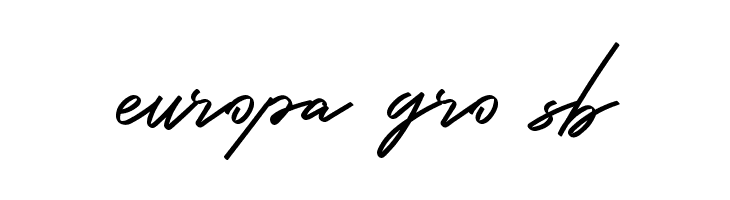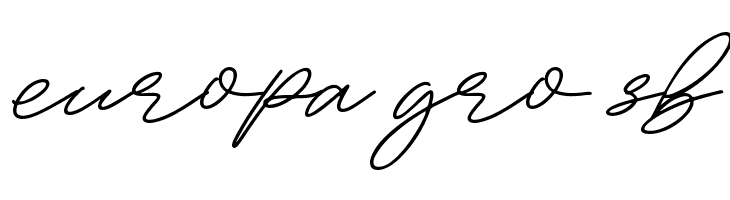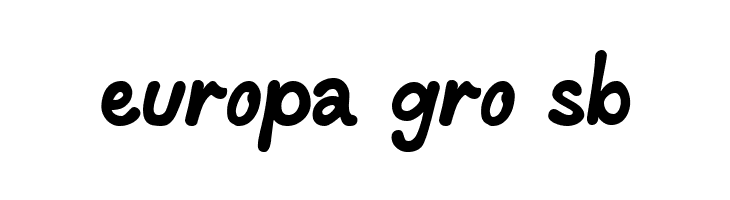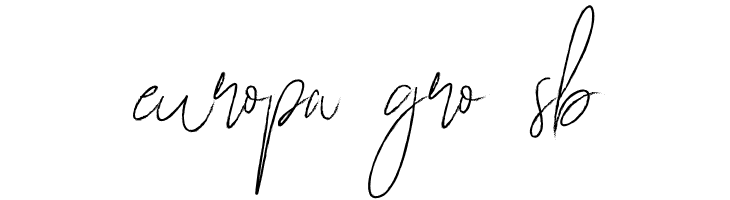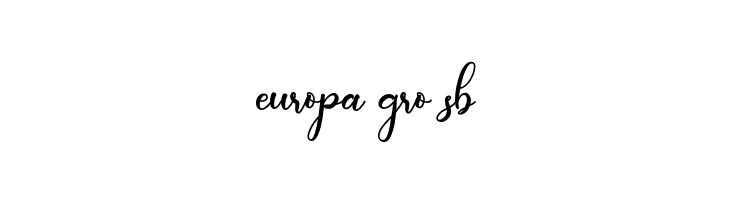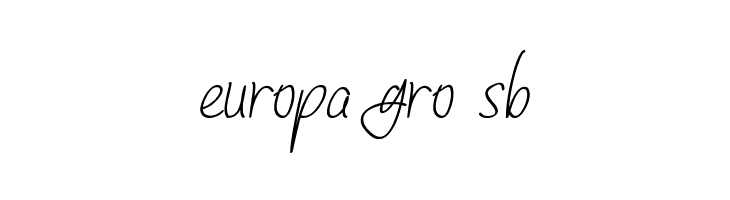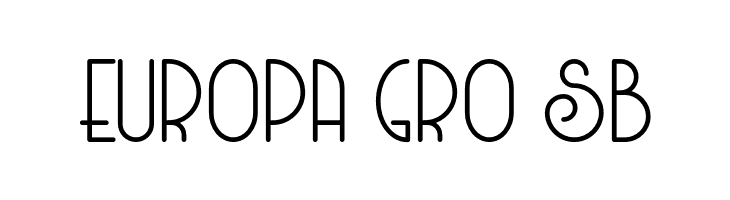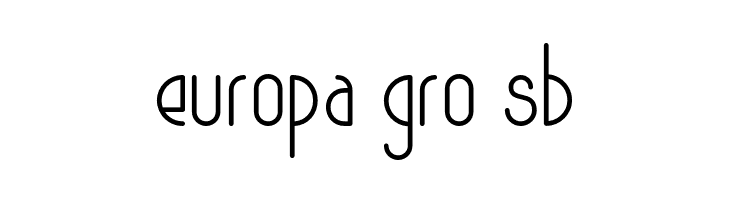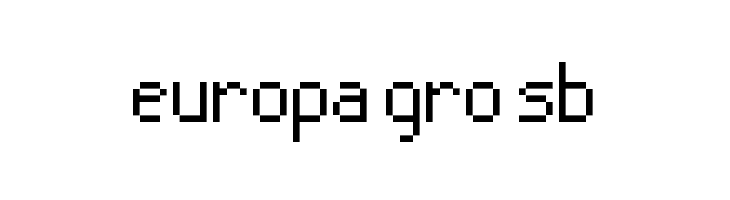
A lively and elegant script font with flowing, interconnected letterforms.
A graceful script font with elegant, flowing letters reminiscent of classic calligraphy.
A fluid and elegant handwritten font with dynamic, flowing letterforms.
A modern, geometric font with clean lines and a slightly condensed style.
A playful, comic-style font with bold, rounded strokes and a hand-drawn appearance.
A modern, geometric font with rounded edges and consistent stroke widths.
A playful and bold script font with a handwritten feel.
A dynamic handwritten font with fluid, continuous strokes and a casual elegance.
A fluid, handwritten script font with elegant, flowing lines.